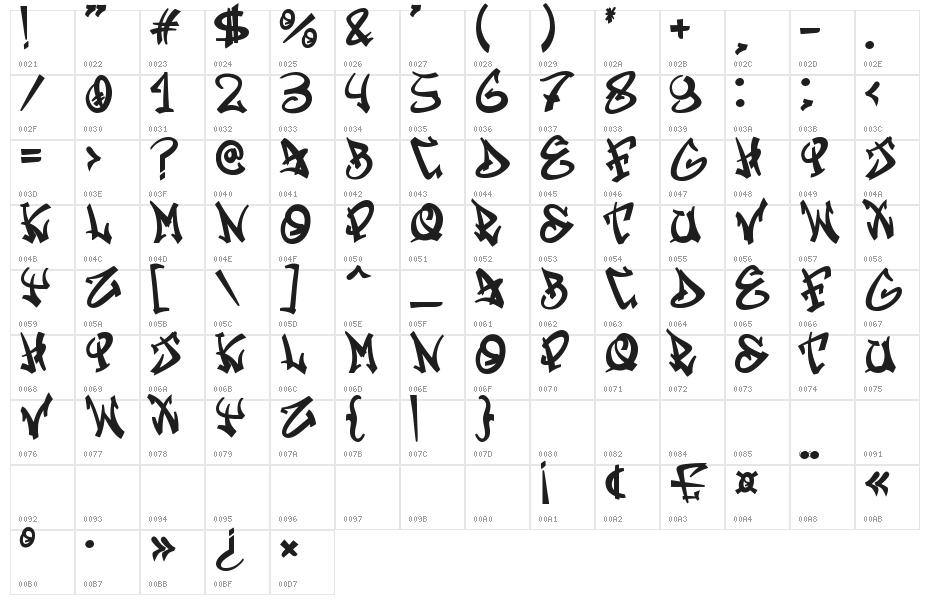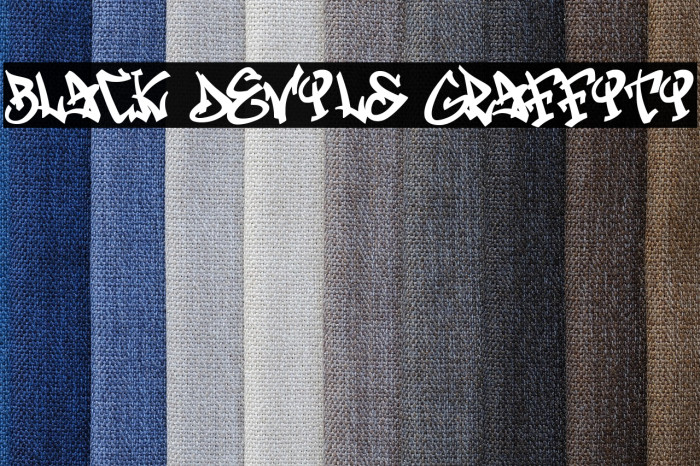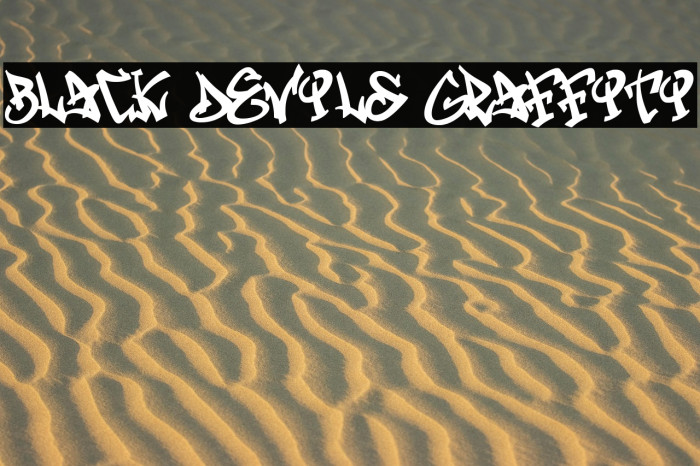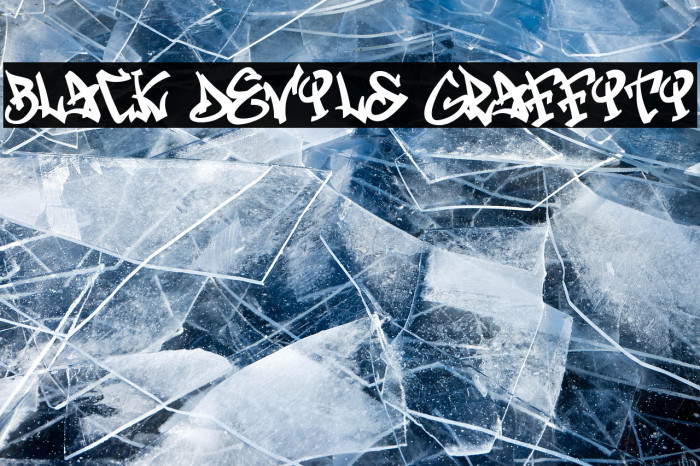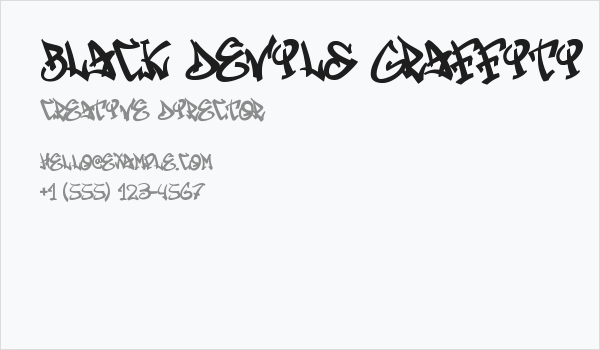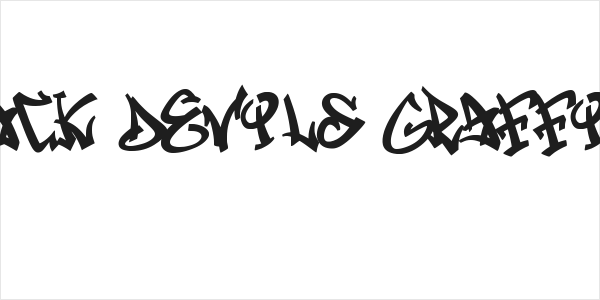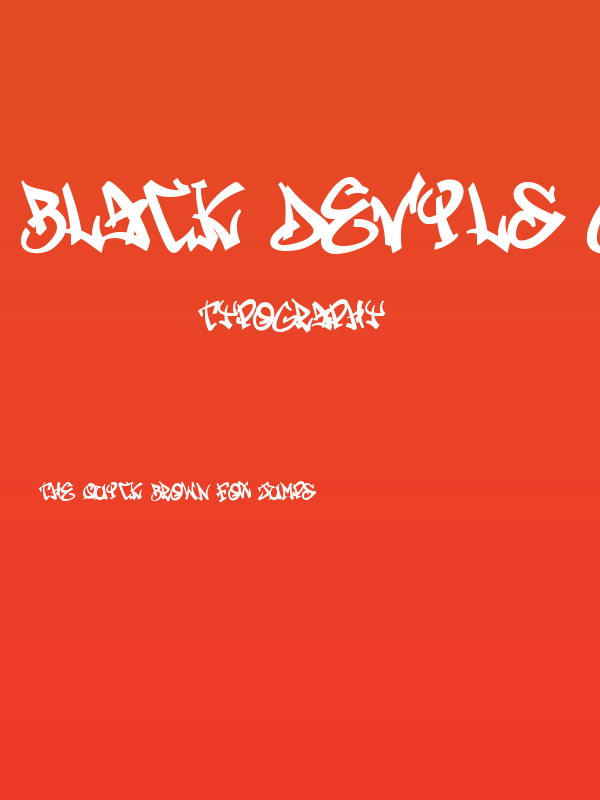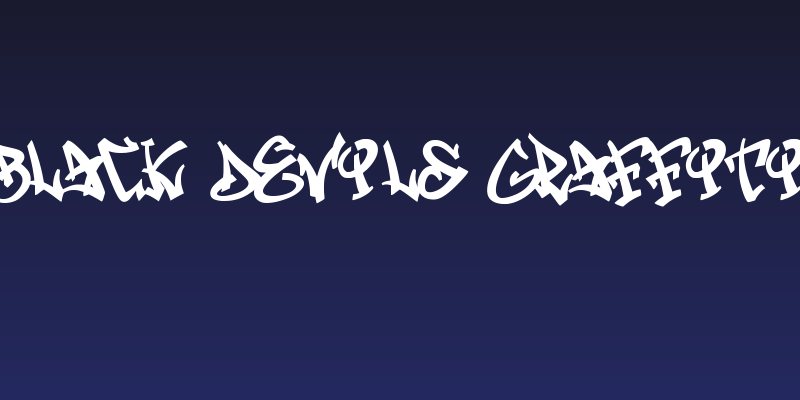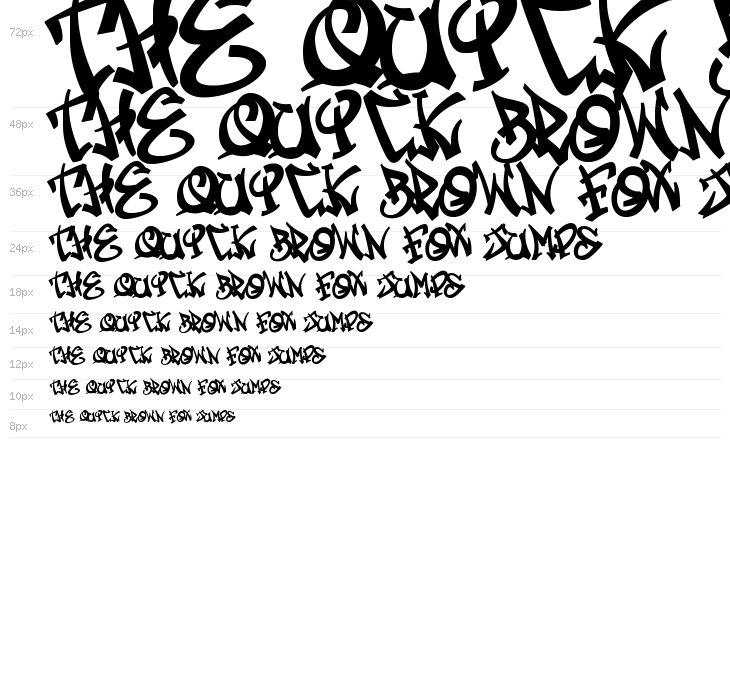
Black Devils Graffiti Font
Black Devils Graffiti Description
This font embodies the raw, energetic style of urban graffiti. Each character is crafted with bold, jagged lines and dynamic angles, capturing the rebellious spirit of street art. The uppercase and lowercase letters maintain a consistent aesthetic, with exaggerated curves and sharp edges that create a sense of movement and intensity. Numbers and special characters are equally expressive, adding to the font's versatility. The overall design is striking and impactful, making it ideal for projects that require a bold statement. Its unique style is perfect for capturing attention and conveying a sense of edginess and creativity.
| Overall Style | Urban, Edgy, Graffiti |
| Use Case | Headlines, Posters, Branding |
| Proposed Projects | Ideal for street art projects, urban-themed posters, edgy branding, and music album covers. |